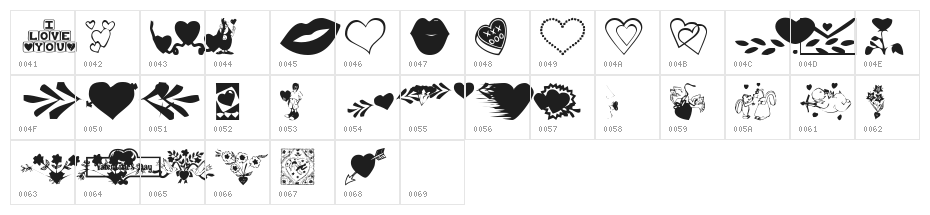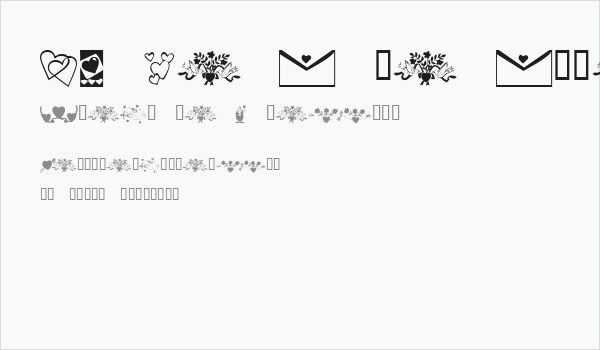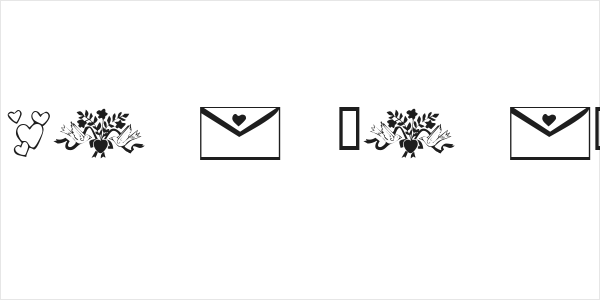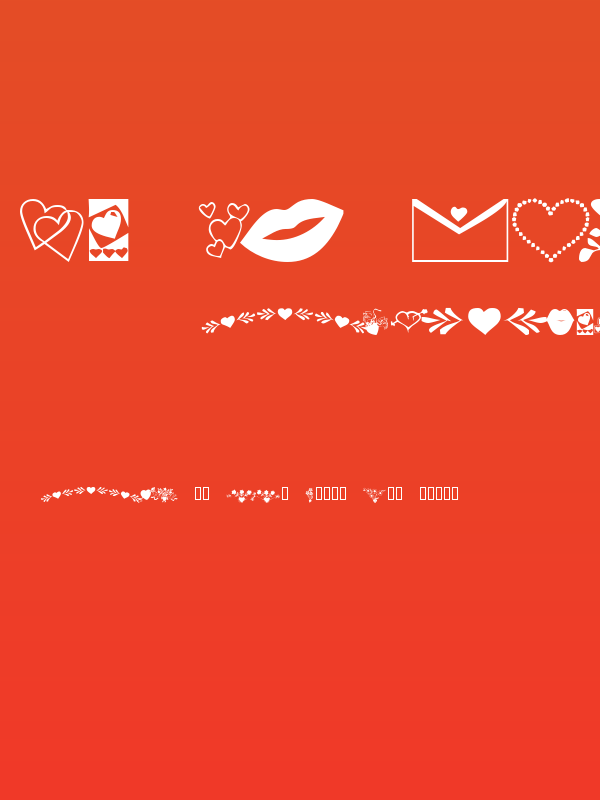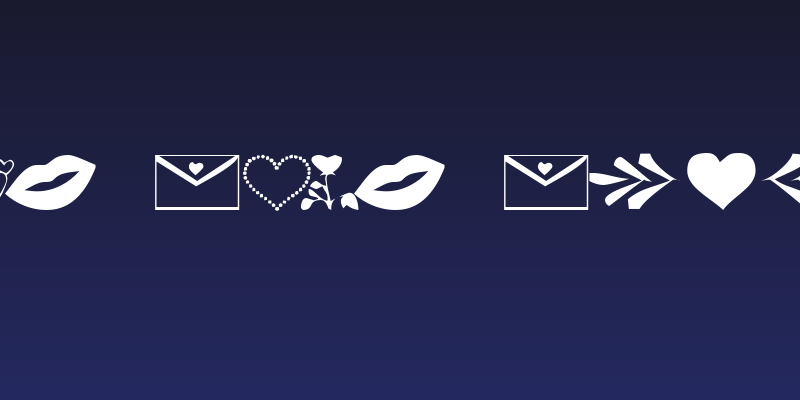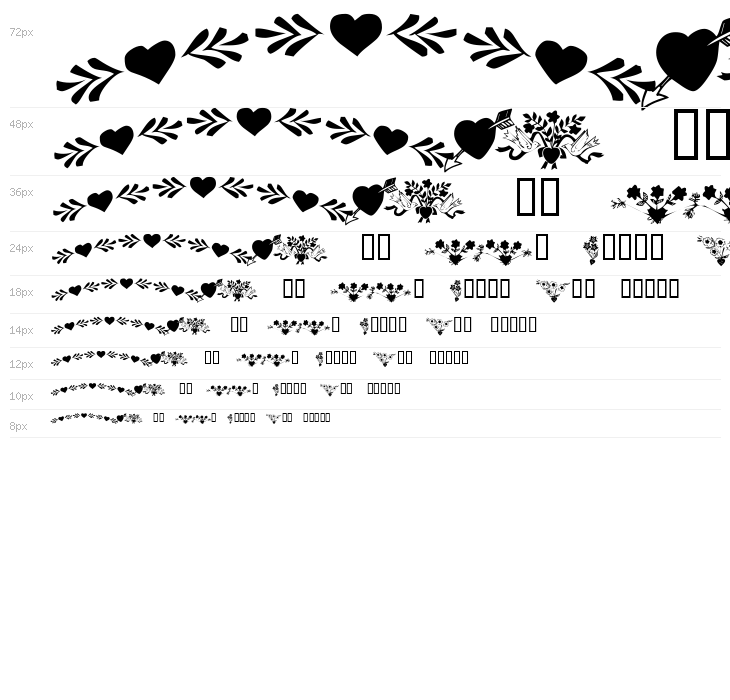
KR Be Mine More Font
KR Be Mine More Description
This design is a decorative collection of romantic-themed graphics, featuring elements such as hearts, lips, flowers, and love-related symbols. The imagery is playful and whimsical, with a focus on Valentine's Day motifs. The graphics are bold and clear, making them suitable for decorative purposes. The style is consistent with a romantic and festive theme, ideal for creating a loving and joyful atmosphere.
| Use Case | Logos, Decorative elements |
| Proposed Projects | Ideal for Valentine's Day cards, romantic event invitations, love-themed scrapbooking, and festive decorations. |